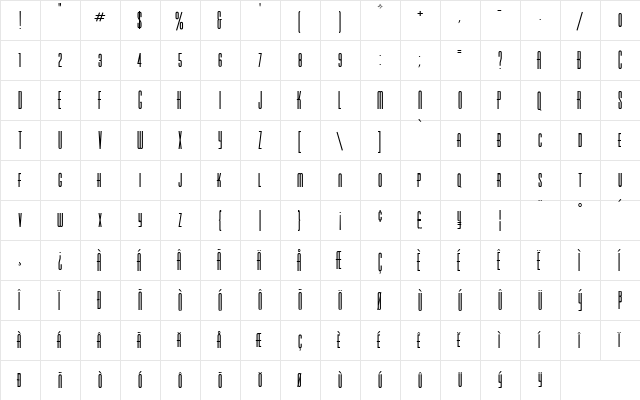
VarickaSC Regular
| Version | Version 1.000 02/13/2010 Based on 'Varick'. From "Decorative Condensed Alphabets", by Dan Solo, Page 94. It is similar to Red Rooster's Triple Gothic Condensed, but the Solo book's font has different features and shapes. |
VarickaSC is a composed and adaptable typeface that performs quietly and consistently across a wide range of design contexts.